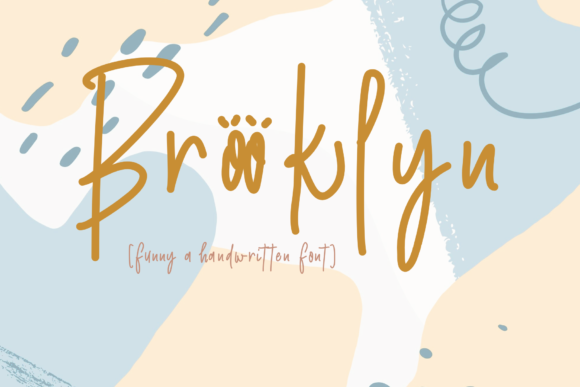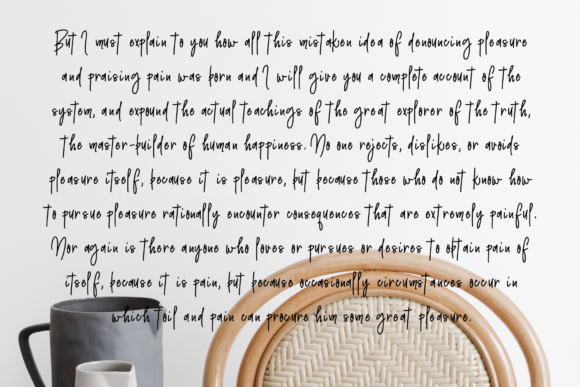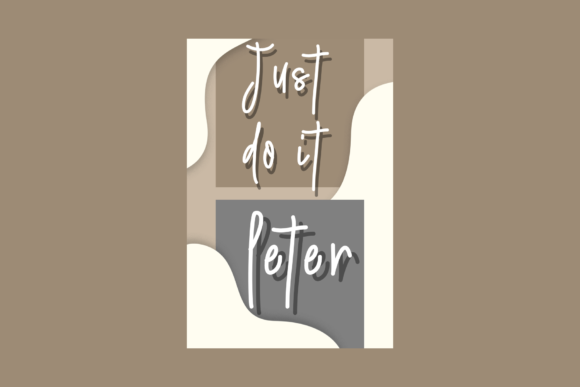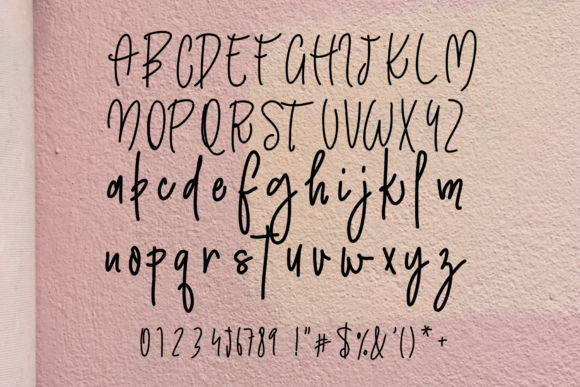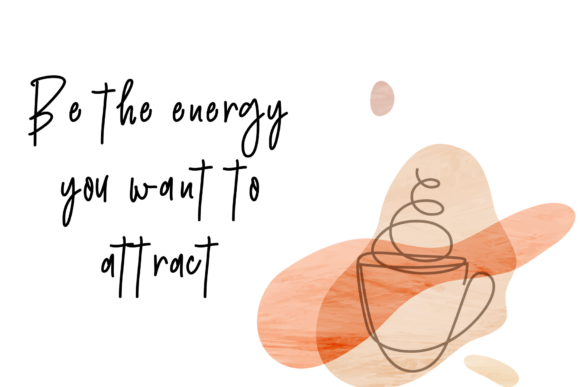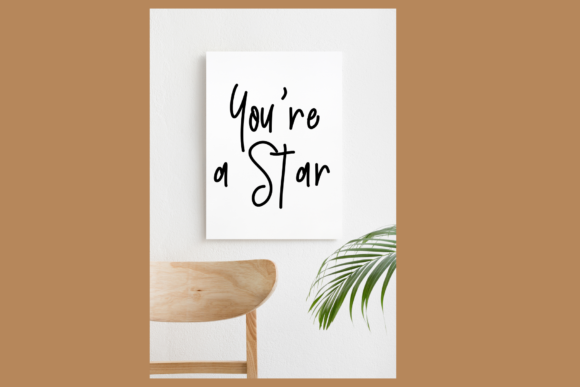
About Brooklyn Font
Brooklyn is a magical handwritten font carefully created with a touch of elegance. This is a beautiful combination of timeless elegance and authentic calligraphy. It features an incredibly classic style, while still keeping a friendly fee and perfect font for making original and outstanding designs.